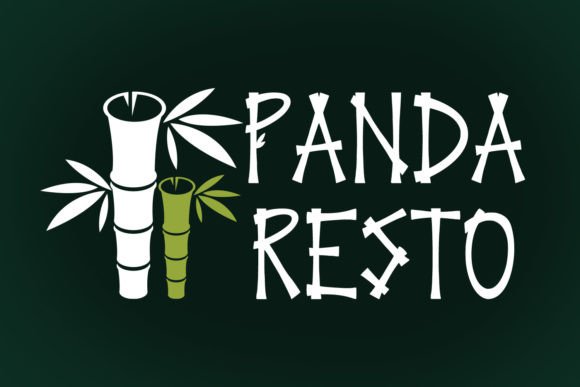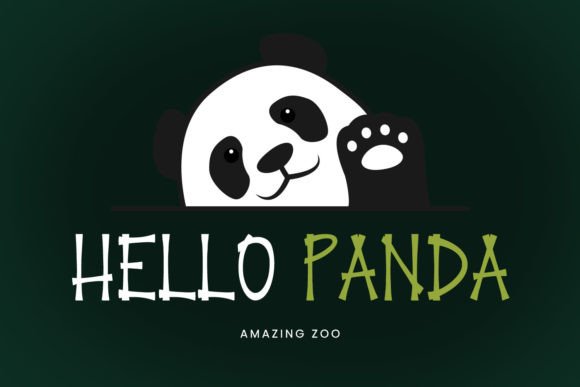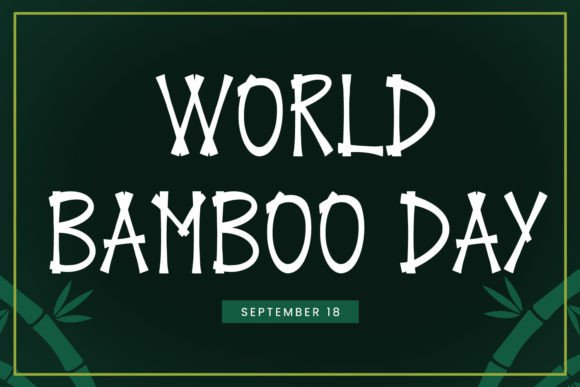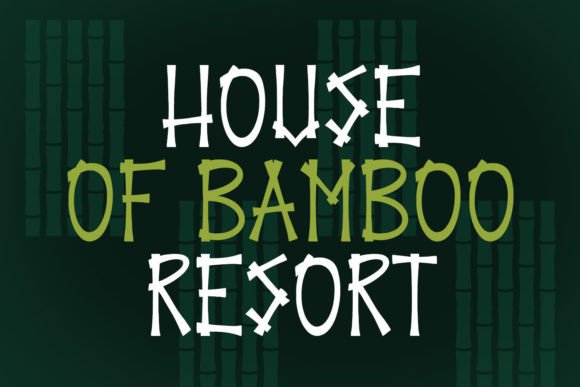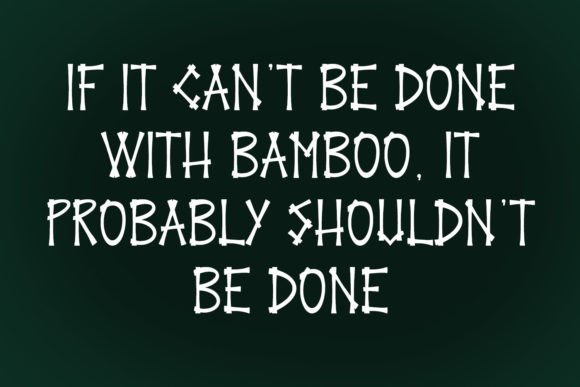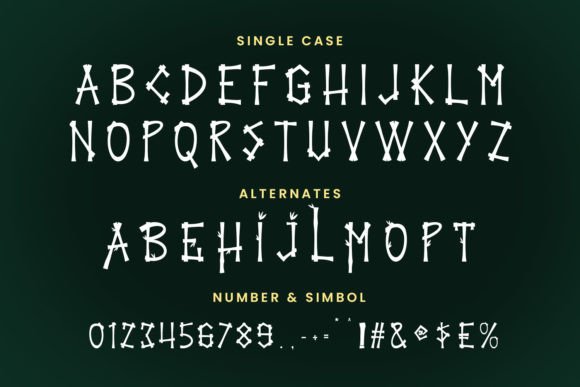
Bamboo Village Font: Elevate Your Designs with a Unique Decorative Display Font
Are you tired of using the same old fonts for your designs? Look no further than the Bamboo Village font, a decorative display font that is sure to add a touch of personality to your work. With its bold strokes, fun character, and ligatures, this font is perfect for designers and crafters looking to create something truly unique.
What is Bamboo Village Font?
Bamboo Village is a decorative display font that is designed to make a statement. Its bold strokes and fun character make it perfect for a variety of design projects, from logo design to social media graphics, movie titles, and book titles. The font also features ligatures and alternates, which add an extra touch of personality to your text.
Key Features of Bamboo Village Font
• Bold Strokes: The Bamboo Village font features bold strokes that are sure to grab attention.
• Fun Character: The font has a fun and playful character that is perfect for designs that need a bit of personality.
• Ligatures and Alternates: The font features ligatures and alternates, which allow you to add an extra touch of personality to your text.
• PUA Encoded: The Bamboo Village font is PUA encoded, which means you can access all of the amazing glyphs and ligatures with ease.
Uses for Bamboo Village Font
The Bamboo Village font is versatile and can be used for a variety of design projects, including:
• Logo Design: The font’s bold strokes and fun character make it perfect for logo design.
• Social Media: Use the Bamboo Village font to create eye-catching social media graphics.
• Movie Titles: The font’s bold strokes and ligatures make it perfect for movie titles and posters.
• Book Titles: Use the Bamboo Village font to create eye-catching book titles and covers.
• Short and Long Text: The font is suitable for both short and long text, making it perfect for a variety of design projects.
• Secondary Text Font: The Bamboo Village font is also suitable for use as a secondary text font with script or serif fonts.
Why Choose Bamboo Village Font?
There are many reasons to choose the Bamboo Village font for your design projects. Here are just a few:
• Unique and Eye-Catching: The font’s bold strokes and fun character make it truly unique and eye-catching.
• Versatile: The Bamboo Village font can be used for a variety of design projects, from logo design to social media graphics.
• Easy to Use: The font is PUA encoded, which makes it easy to access all of the amazing glyphs and ligatures.
Tips for Using Bamboo Village Font
Here are a few tips for using the Bamboo Village font in your design projects:
• Experiment with Different Sizes: The Bamboo Village font looks great in a variety of sizes, from large display text to smaller body text.
• Pair with Other Fonts: The font pairs well with script or serif fonts, making it perfect for use as a secondary text font.
• Use Ligatures and Alternates: Don’t be afraid to experiment with the font’s ligatures and alternates to add an extra touch of personality to your text.
The Bamboo Village font is a unique and versatile decorative display font that is perfect for designers and crafters looking to add a touch of personality to their work. With its bold strokes, fun character, and ligatures, this font is sure to make a statement. Whether you’re working on a logo design, social media graphics, movie titles, or book titles, the Bamboo Village font is a great choice.